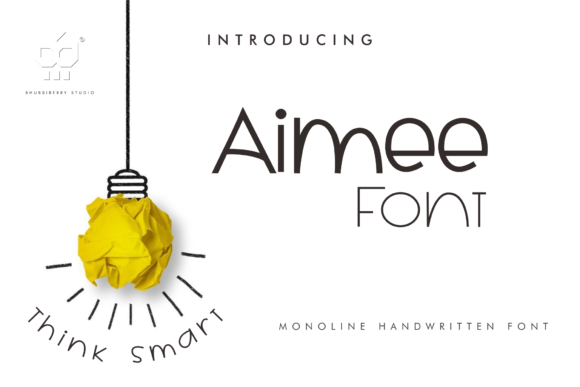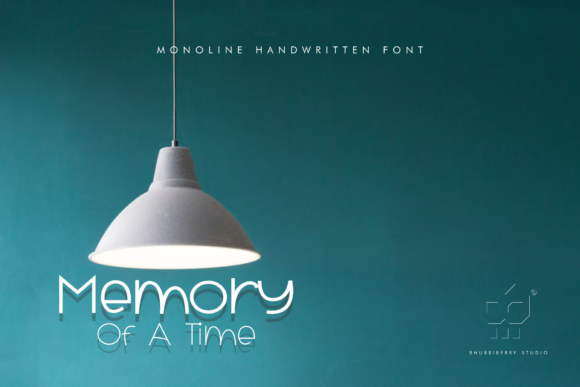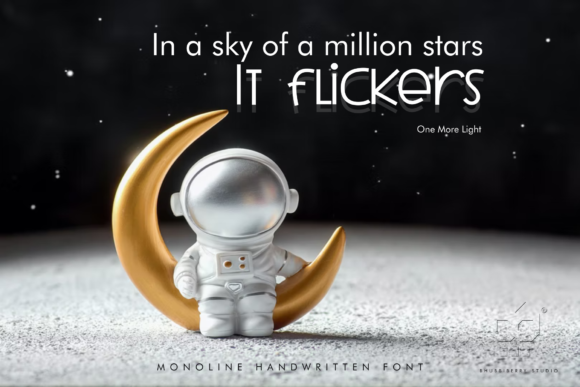
About Aimee Font
Aimee, with its charming and friendly handwritten aesthetic, emerges as a delightful font choice that effortlessly infuses sweetness into a diverse range of design projects. The natural and unique style of Aimee lends itself gracefully to various creative endeavors, offering a versatile and inviting quality that knows no bounds. This font becomes a canvas for your imagination, transcending limits and opening doors to a myriad of design possibilities.
The inherent sweetness of Aimee makes it particularly suitable for projects where a warm and personable touch is desired. Whether you’re working on branding materials, product packaging, invitations, quotes, posters, or even social media graphics, Aimee injects a sense of approachability and friendliness. Its handwritten charm adds a personal and authentic dimension to your designs, creating a connection with the audience.
Aimee’s versatility shines through in its adaptability to different design contexts. Whether you are aiming for a casual and relaxed vibe or a more polished and sophisticated look, this font seamlessly adjusts to your creative vision. Its flexibility allows it to enhance the visual appeal of a wide array of projects, making it a valuable asset for both professional designers and those exploring their creative instincts.
The beauty of Aimee lies in its ability to evoke emotions and set the tone for your designs. Its friendly demeanor is perfect for conveying warmth and approachability in a world saturated with visual content. As you harness the creative potential of Aimee, you discover that the only limit to its application is your imagination. It becomes a partner in your design journey, inspiring and enhancing the impact of your visual storytelling.
In conclusion, Aimee is not just a font; it’s a design companion that adds a touch of sweetness and friendliness to your creative expressions. Embrace the unique style of Aimee, and let it be the catalyst that transforms your ideas into visually captivating and emotionally resonant designs. The journey with Aimee is an exploration of limitless creativity, where each project becomes a canvas for your imagination to unfold and leave a lasting impression.